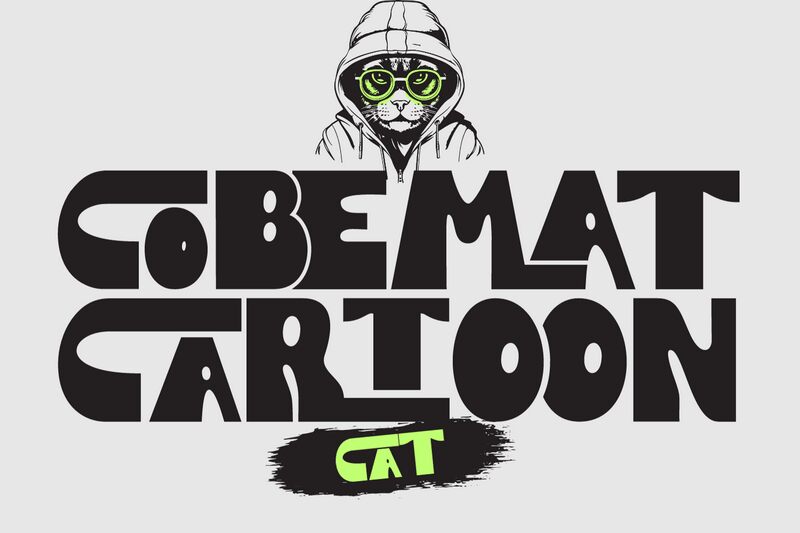
Cobemat Cartoon Demo
Cobemat Cartoon font by 177Studio is a free display font with a bold weight and captivating look that grabs all the attention it can. Its blocky aesthetic goes hand in hand with its futuristic, geometric, and uniform appearance reminiscent of retro designs you might have come across.
Use this font for T-shirt designs, mug branding, book covers, notebooks, magazines cover pages, logos for various purposes, website projects & portals as well as app interfaces.